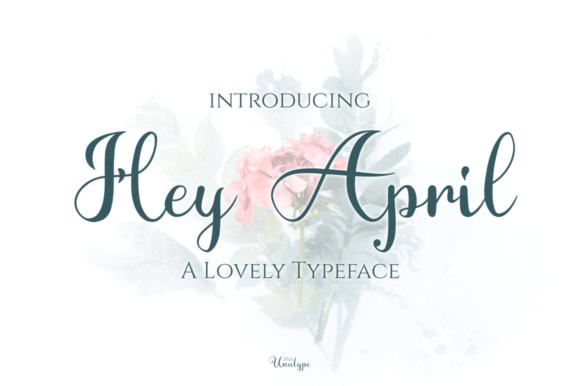
Dive into the world of captivating calligraphy with Hey April, a script font that dances across the page with grace and elegance. Let your creativity flourish as you explore endless possibilities with this modern handwritten masterpiece.
Hey April is more than just a font; it's an expression of your individuality, a conduit for your heartfelt messages. Whether crafting heartfelt invitations for life's momentous occasions or designing enchanting logos that speak volumes, Hey April becomes your trusted companion, adding a touch of magic to every project.
Its classic and evergreen essence ensures Hey April remains timeless, transcending fleeting trends. Embrace the versatility of this font family, seamlessly adaptable to a myriad of designs, from heartfelt wedding stationery to playful t-shirt designs. Unleash your inner artist and let Hey April elevate your creations to new heights.
Designed with meticulous attention to detail by Unatype, Hey April boasts a wide language support, ensuring your message reaches a global audience. Its graceful curves and expressive ligatures lend a touch of sophistication to any project, making it the perfect choice for those seeking a touch of elegance.